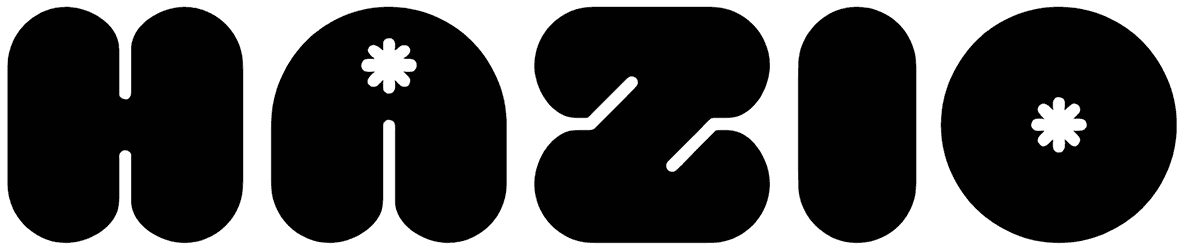
Hazio Font
Embellish your modern design with bulky floral words and give a sweet form to the text. This groovy font, named Hazio, includes unique, smooth letters that would be a nice choice for a lot of ideas. There is no support f…
Embellish your modern design with bulky floral words and give a sweet form to the text. This groovy font, named Hazio, includes unique, smooth letters that would be a nice choice for a lot of ideas. There is no support for lowercase letters and most punctuation marks, but this fancy font will promote your designs like flyers, packaging, covers, or whatnot with a fresh vibe.